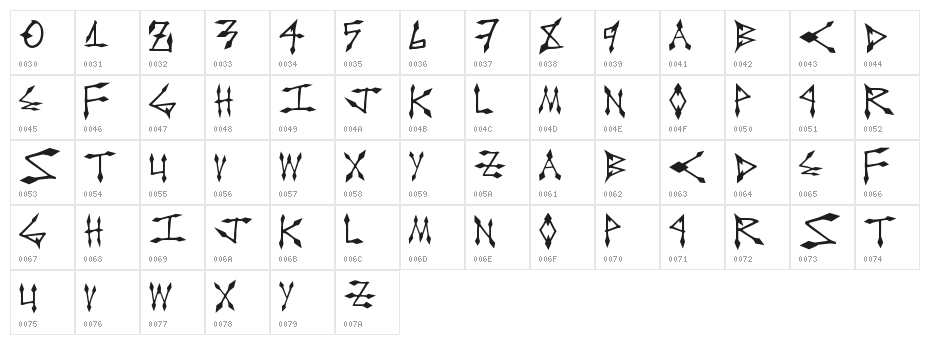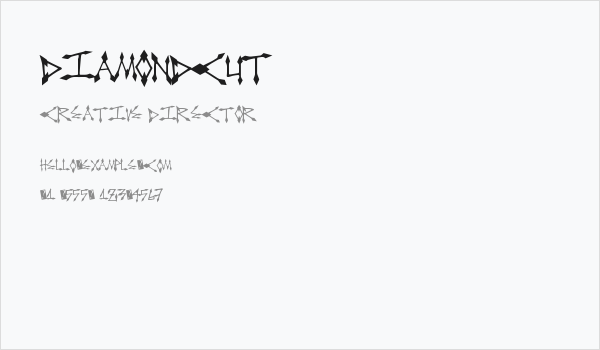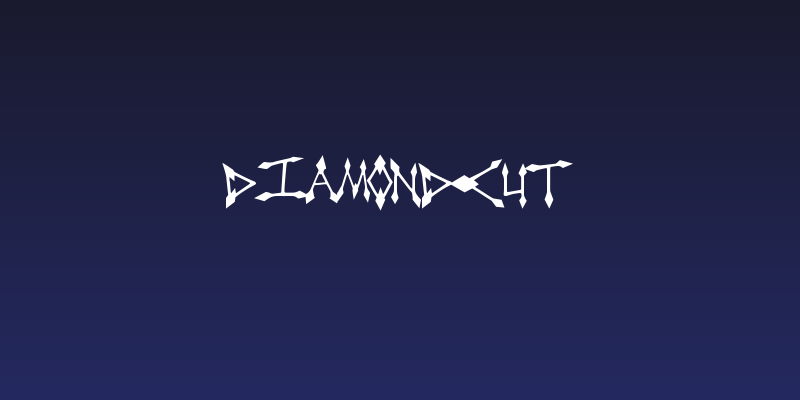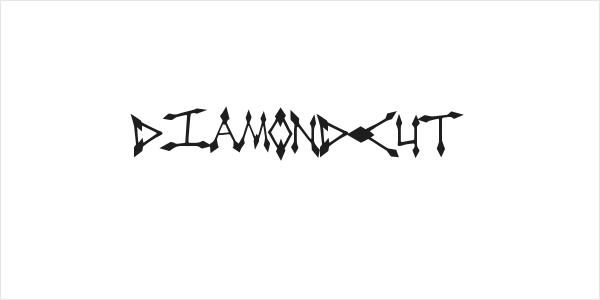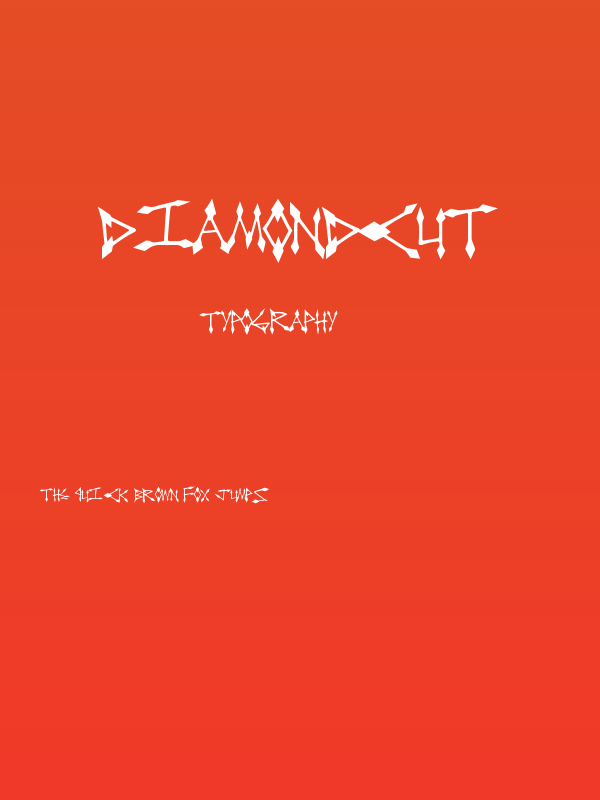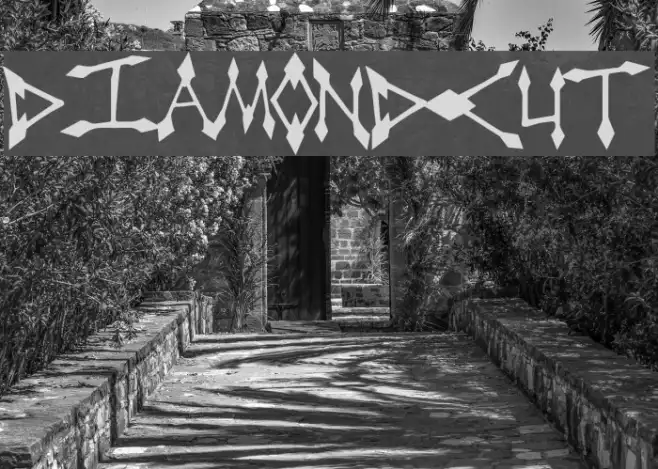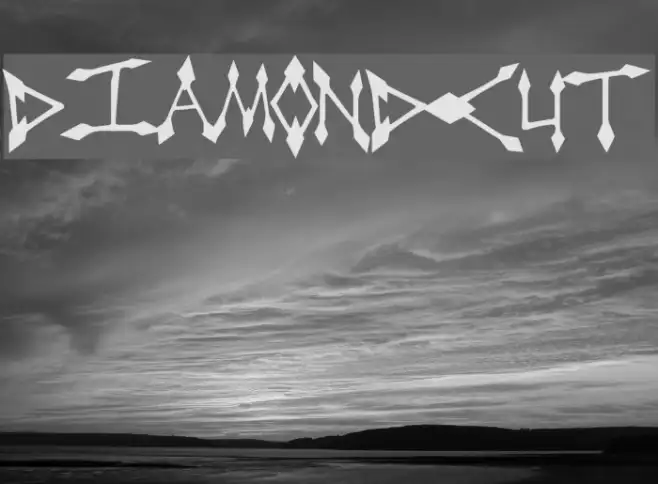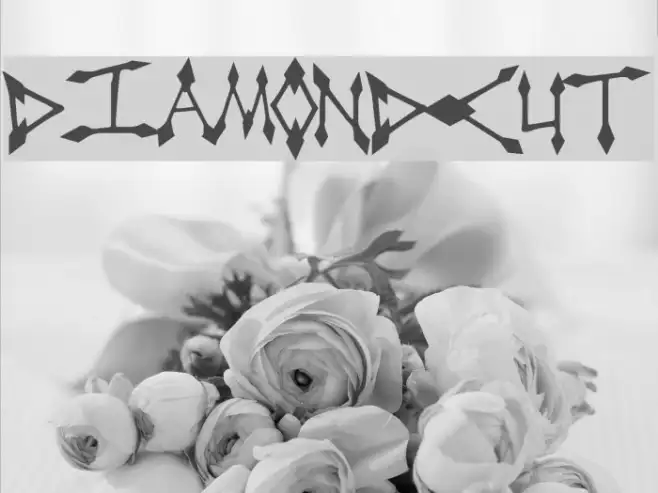
DiamondCut Font
DiamondCut Description
This font features a bold, angular design with sharp, pointed edges and a distinct geometric style. The characters are crafted with a unique, jagged appearance, reminiscent of cut gemstones or shards of glass. The uppercase and lowercase letters maintain a consistent angular theme, while the numbers and special characters follow suit with similar sharpness and intricacy. The overall aesthetic is striking and modern, making it ideal for attention-grabbing designs.
| Proposed Projects | Ideal for edgy branding, album covers, posters, and modern art projects. |